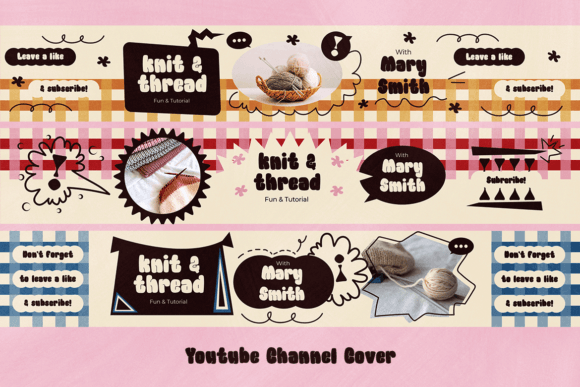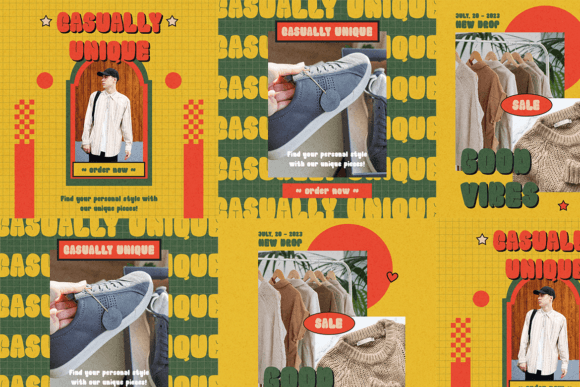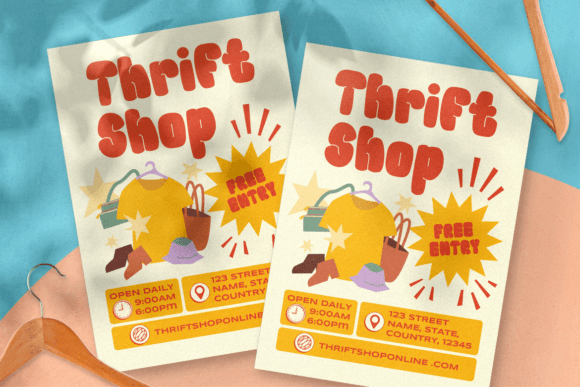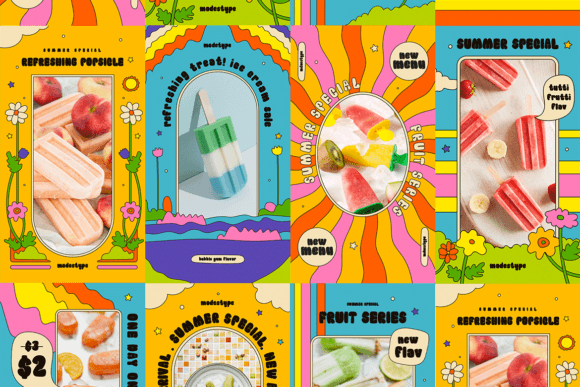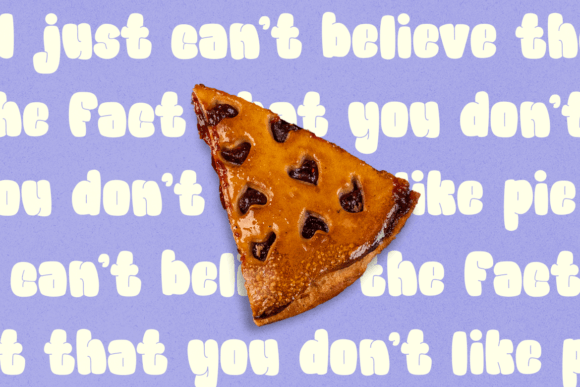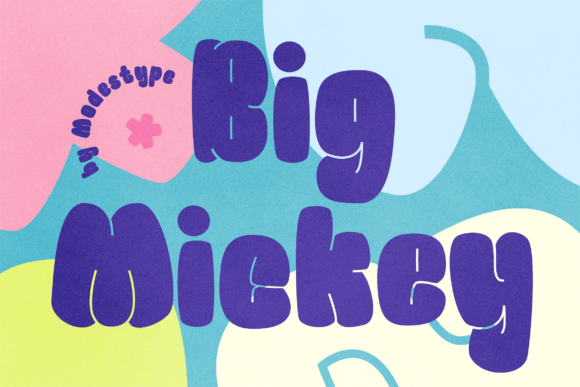
Introducing Big Mickey Font: The Ultimate Cartoon Display Font
Are you looking for a font that can add a touch of humor and playfulness to your designs? Look no further than Big Mickey Font, a bold and chunky font with rounded corners and chubby shapes that’s perfect for a variety of creative projects.
What is Big Mickey Font?
Big Mickey Font is a cartoon display font designed to bring a smile to your face. Its bold and chunky design makes it perfect for headlines, titles, and short phrases, while its rounded corners and chubby shapes give it a friendly and approachable feel.
With Big Mickey Font, you can add weight to your words and make them stand out from the crowd. Whether you’re designing a cartoon book, creating a poster for an event, or crafting a title for a movie or YouTube video, this font is sure to grab attention and put a smile on your audience’s faces.
Perfect for Cartoon Books and Online Games
Big Mickey Font is particularly well-suited for cartoon books and online games, where its playful and humorous vibe can really shine. Imagine using this font to create a title page for a children’s book, or to design a logo for a new online game. The possibilities are endless!
For cartoon books, Big Mickey Font can be used to create engaging and eye-catching titles, headings, and character names. Its bold and chunky design makes it easy to read, even for young readers.
For online games, Big Mickey Font can be used to create fun and playful UI elements, such as button labels, menu headings, and character names. Its friendly and approachable feel makes it perfect for games aimed at a younger audience.
Other Uses for Big Mickey Font
But Big Mickey Font isn’t just limited to cartoon books and online games. Its versatility makes it suitable for a wide range of creative projects, including:
• Event posters: Use Big Mickey Font to create bold and eye-catching titles for your event posters.
• School supplies font: Add a playful touch to your school supply designs with Big Mickey Font.
• Movie titles: Use Big Mickey Font to create fun and engaging titles for your movie projects.
• YouTube covers and thumbnails: Stand out on YouTube with Big Mickey Font’s bold and chunky design.
• Social media page covers: Add a playful touch to your social media pages with Big Mickey Font.
Why Choose Big Mickey Font?
So why choose Big Mickey Font for your next project? Here are just a few reasons:
• Unique and playful design: Big Mickey Font’s bold and chunky design makes it stand out from more traditional fonts.
• Easy to read: Despite its bold design, Big Mickey Font is easy to read, even at smaller sizes.
• Versatile: Big Mickey Font can be used for a wide range of creative projects, from cartoon books to event posters.
• Fun and engaging: Big Mickey Font is sure to bring a smile to your audience’s faces, making it perfect for projects aimed at a younger audience.
In conclusion, Big Mickey Font is a bold and playful cartoon display font that’s perfect for a variety of creative projects. Its unique and playful design makes it stand out from more traditional fonts, while its ease of use and versatility make it a great choice for designers and crafters of all levels.
Whether you’re designing a cartoon book, creating a poster for an event, or crafting a title for a movie or YouTube video, Big Mickey Font is sure to bring a touch of humor and playfulness to your project. So why not give it a try and see the difference it can make?